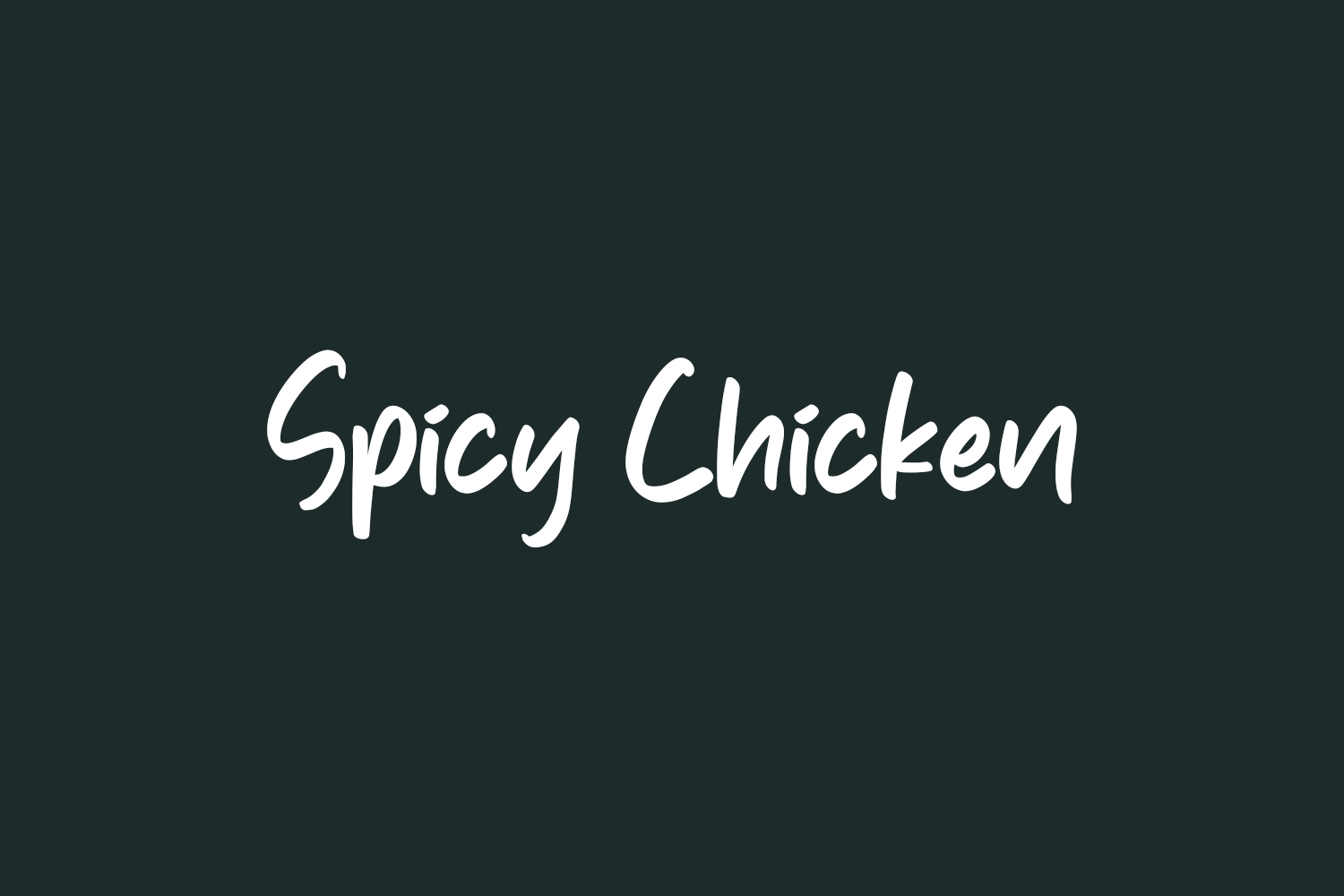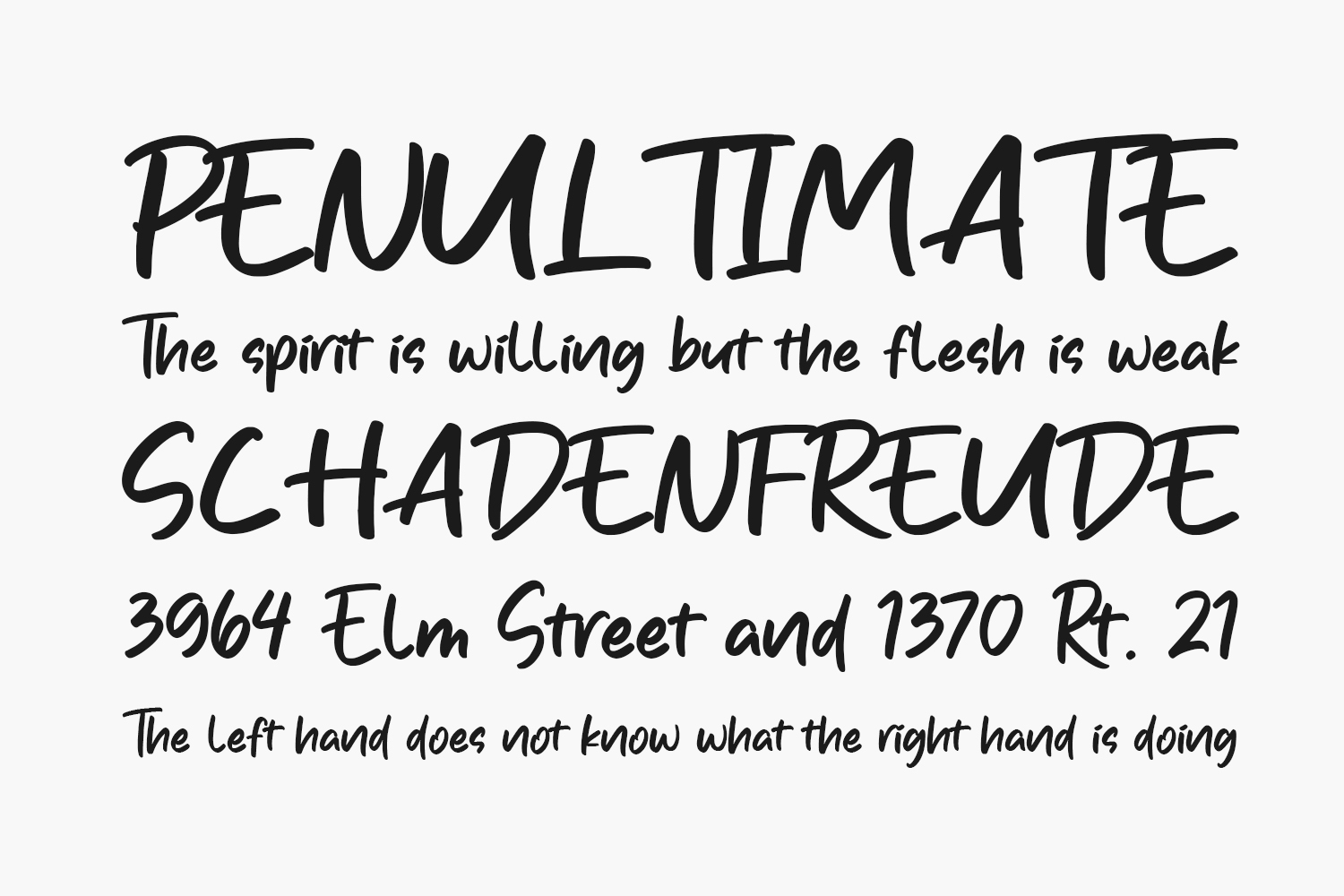
Spicy Chicken Free Font exudes a bold and confident energy, with a hint of intrigue and playfulness. Its sleek lines and elegant curves evoke a sense of sophistication, while the spicy undertones hint at a bold and daring spirit. This font is sure to make a statement and add a touch of charm to any design project.